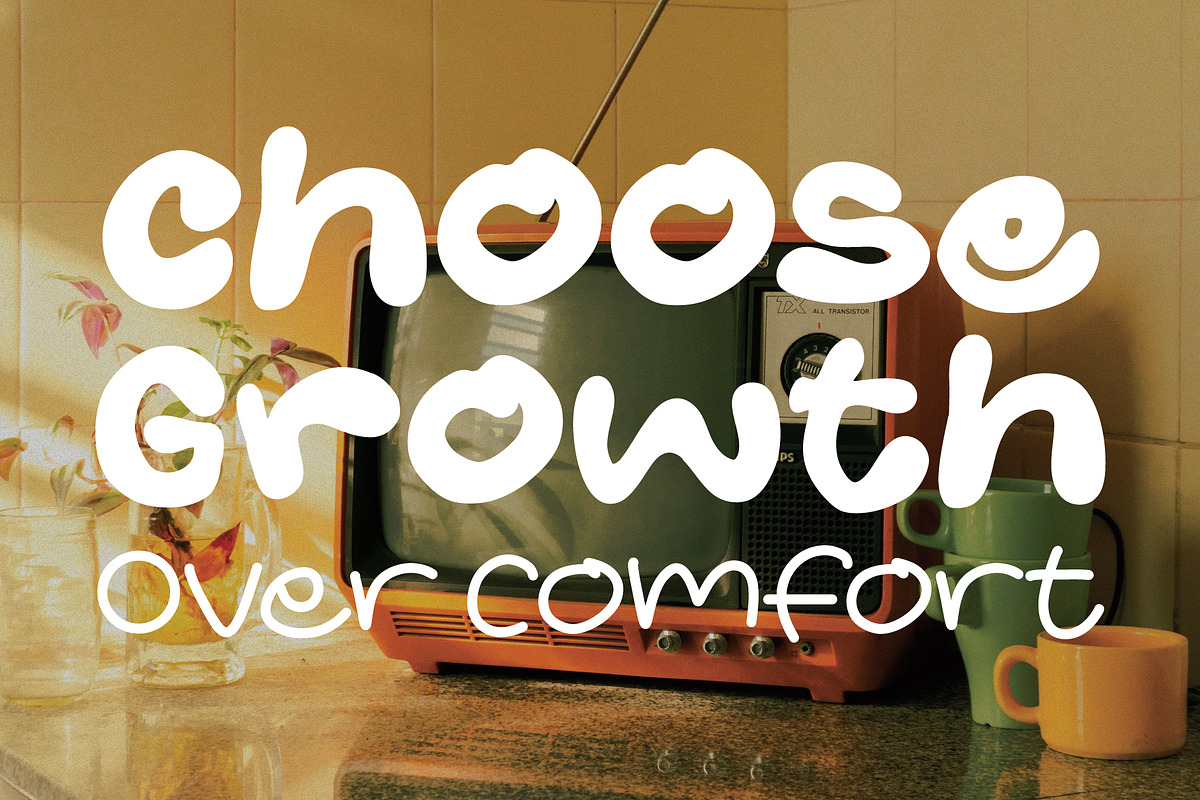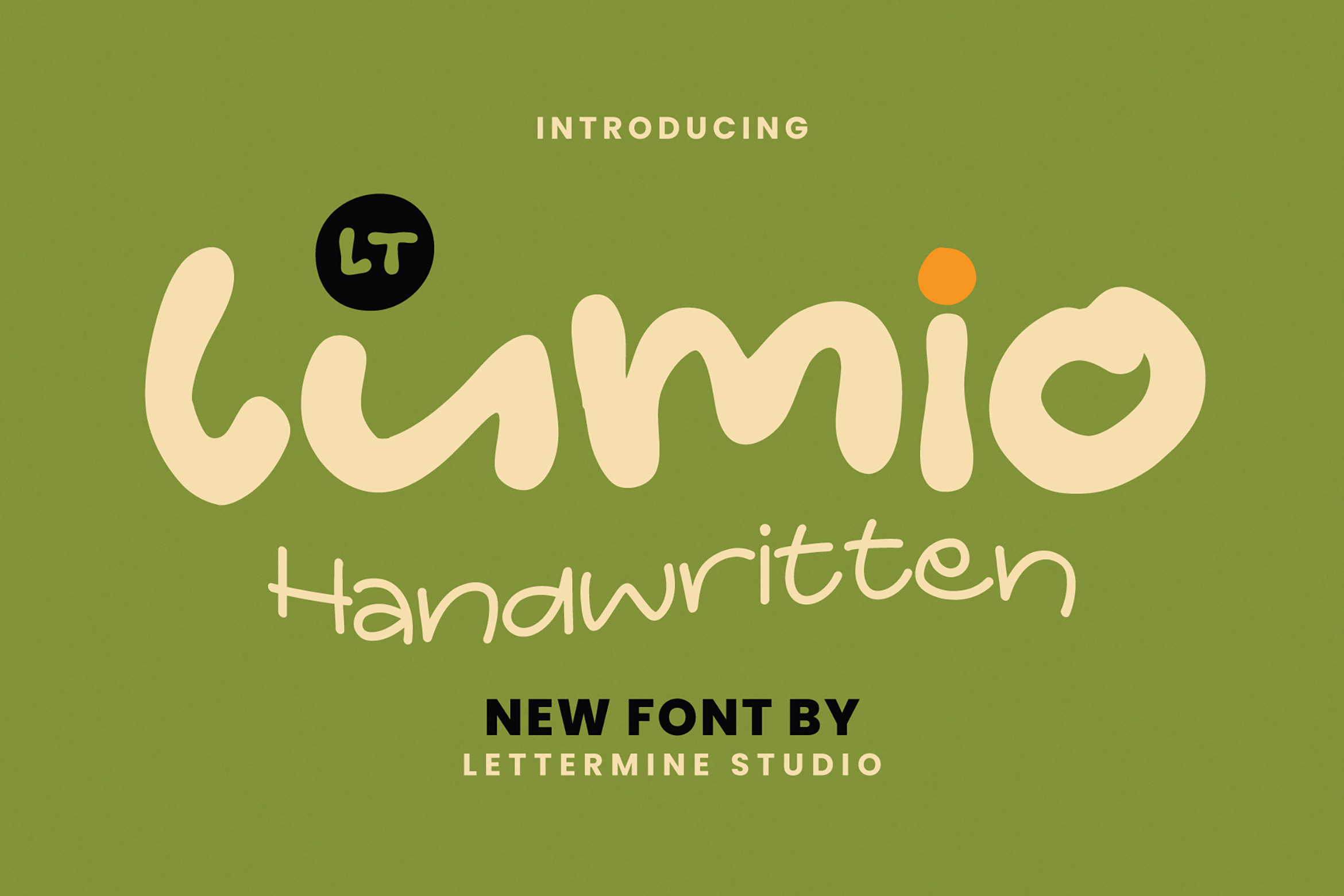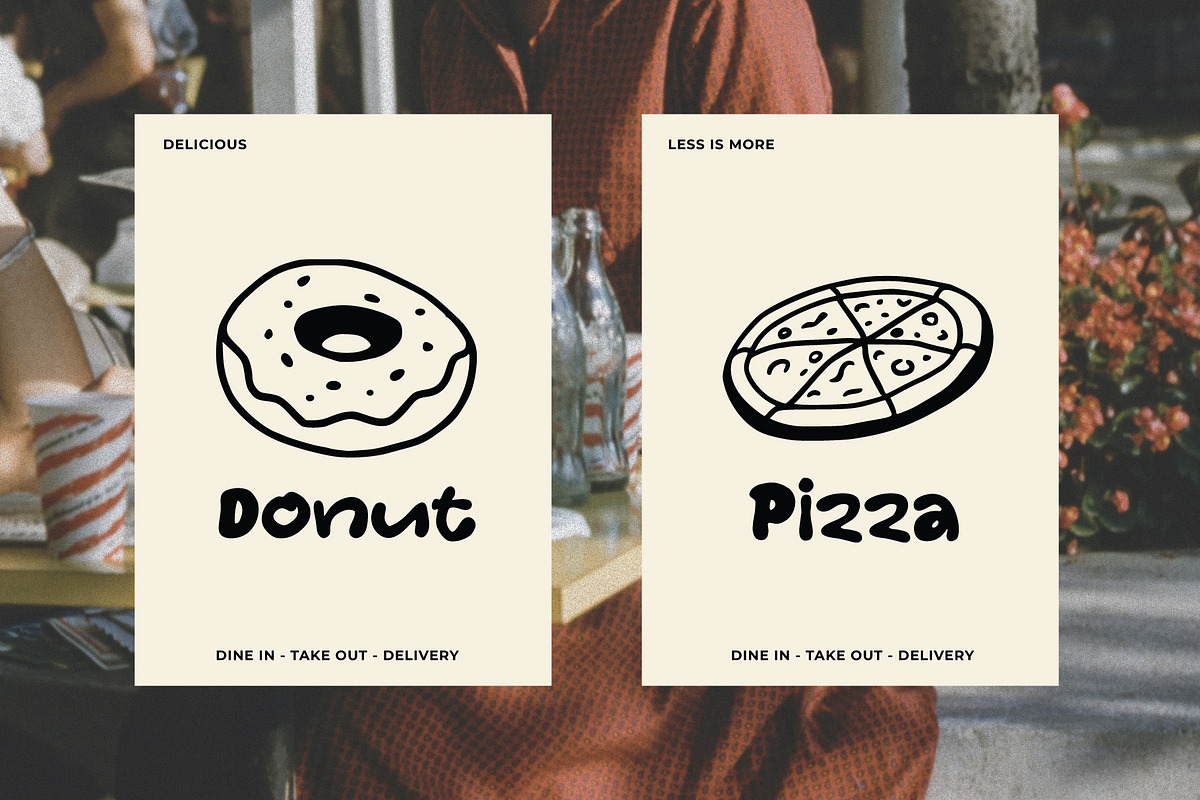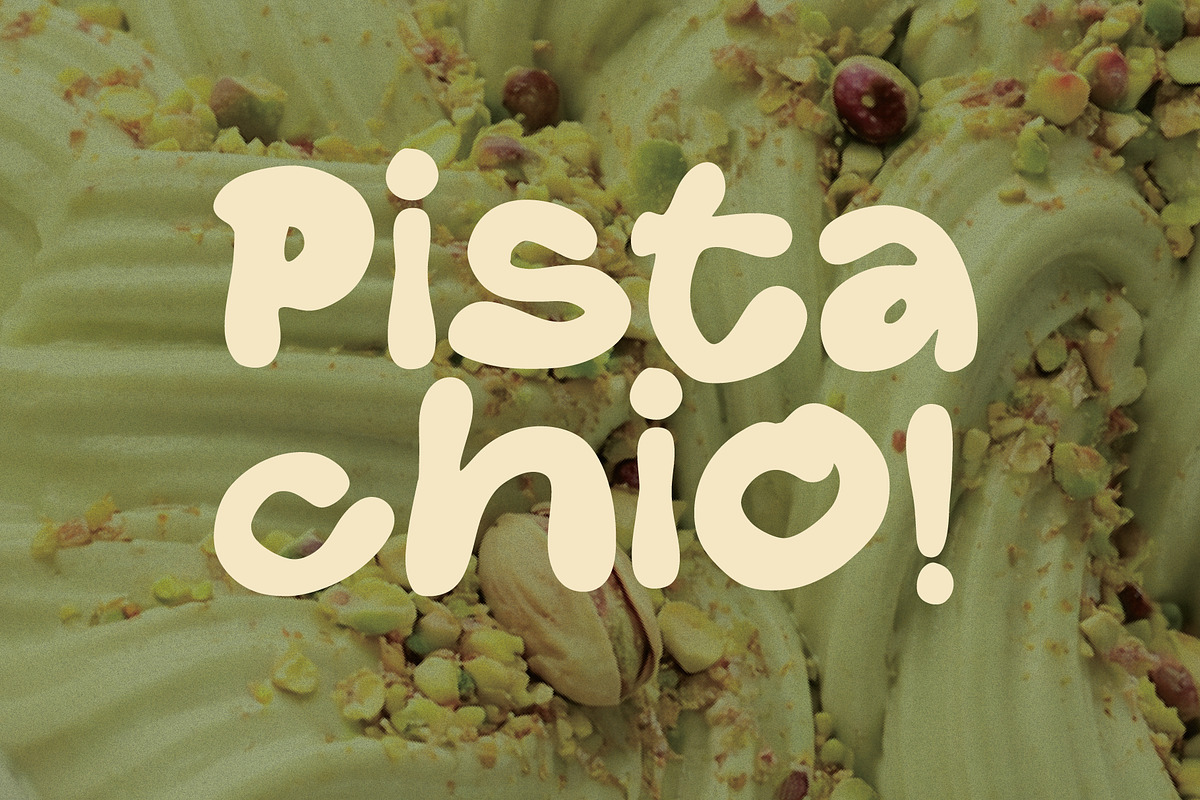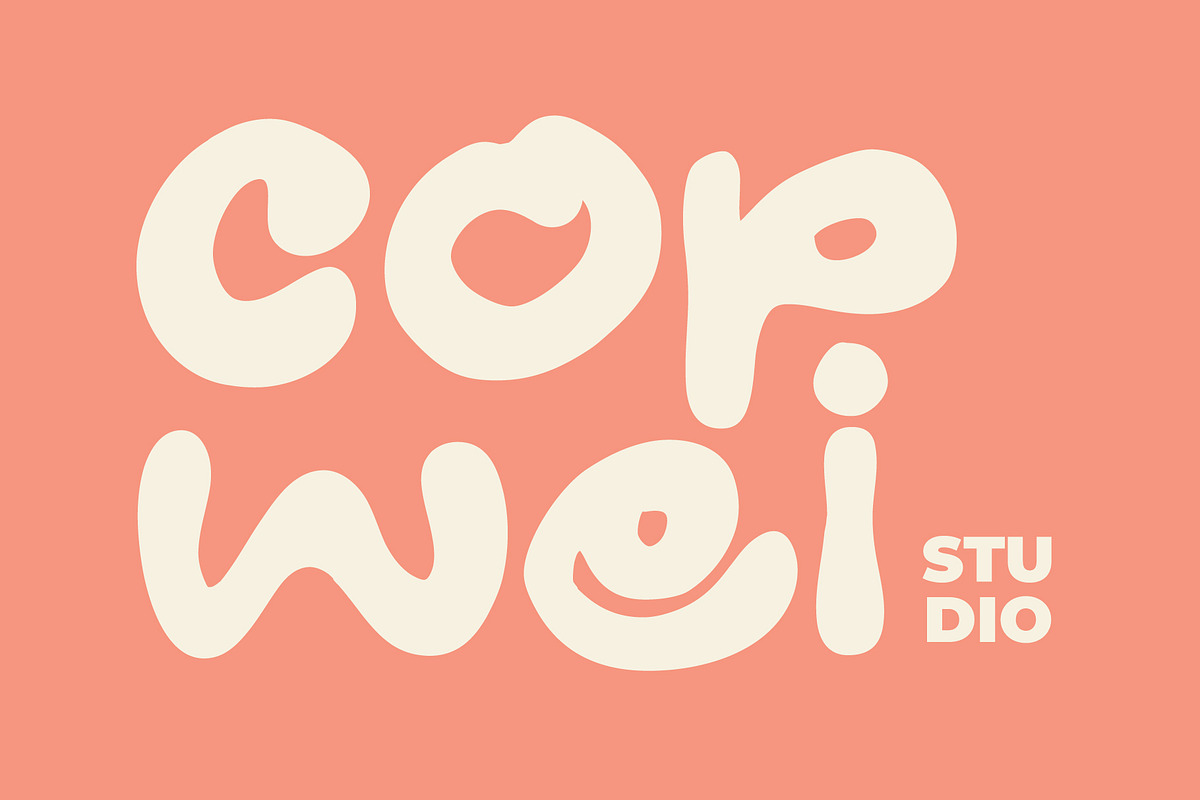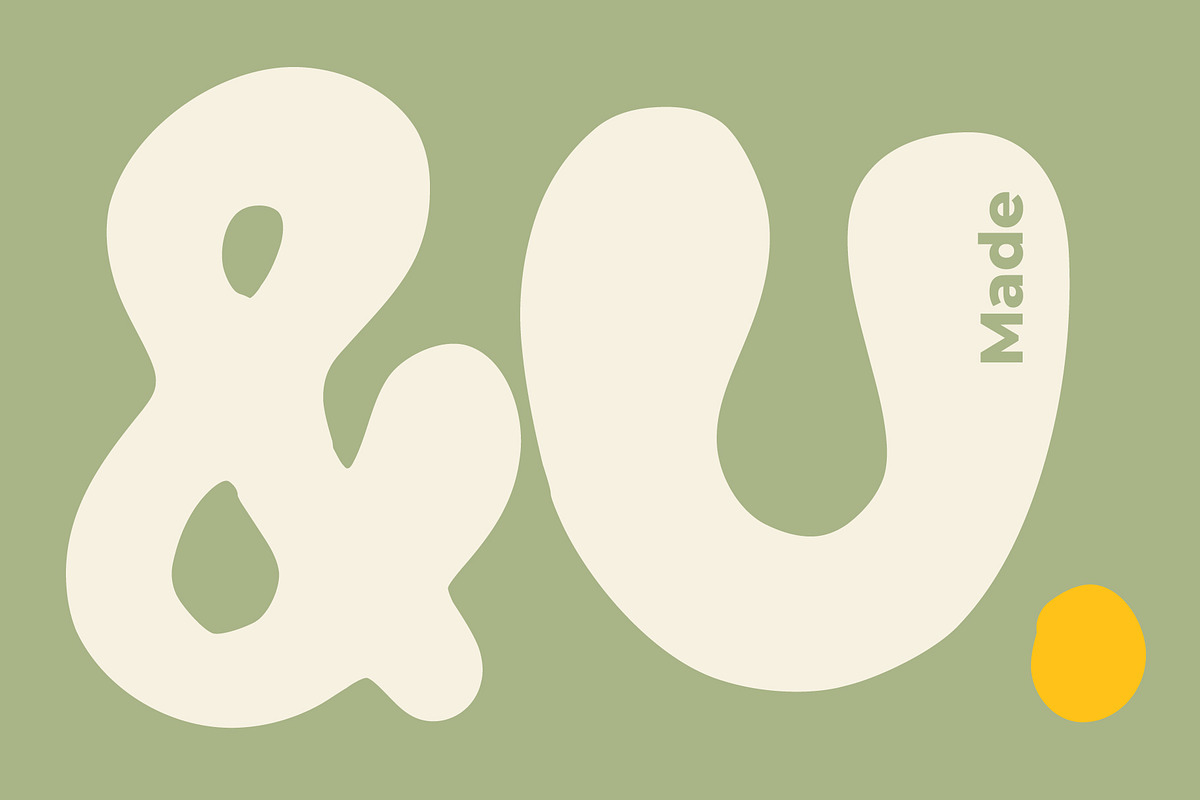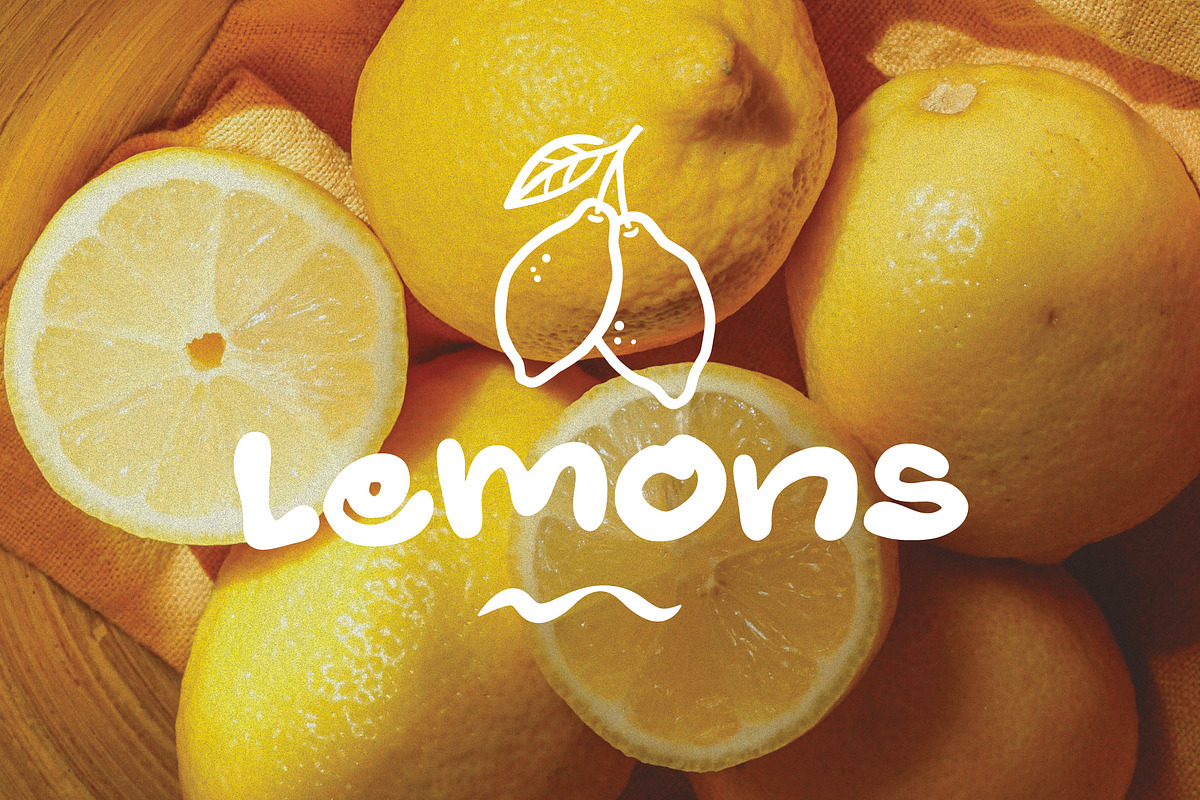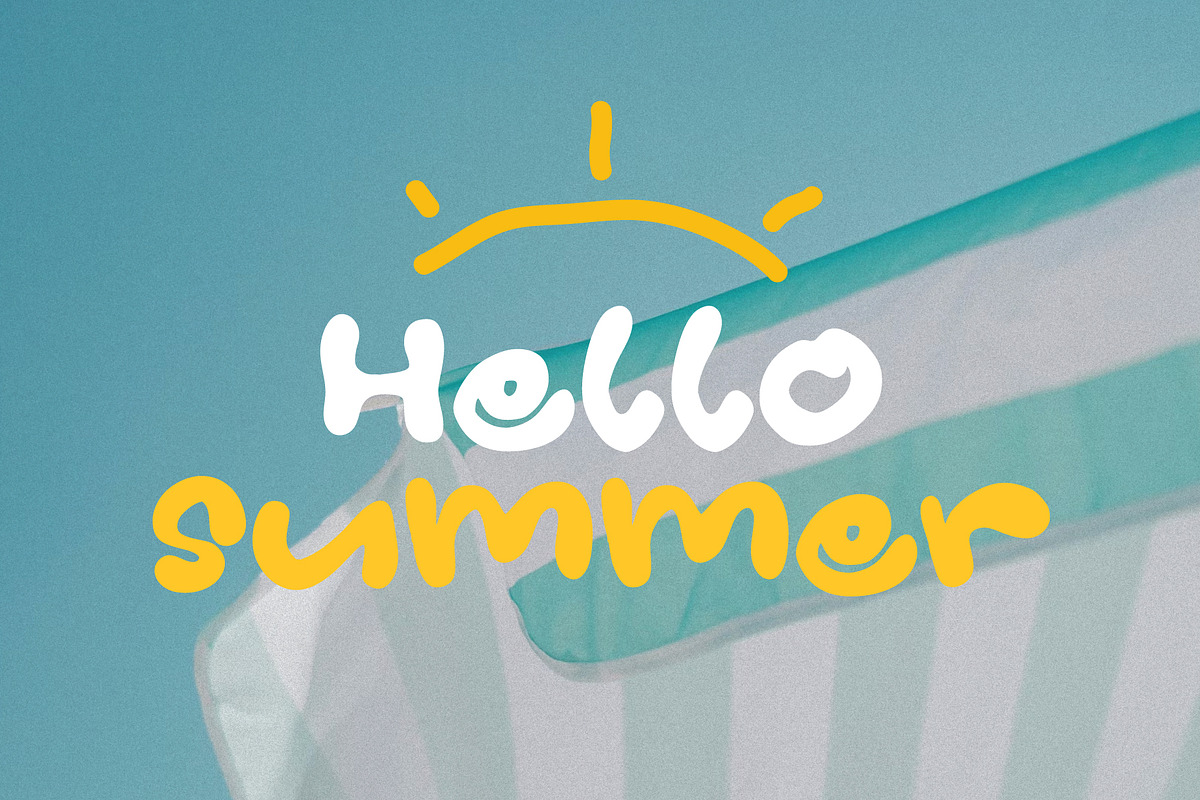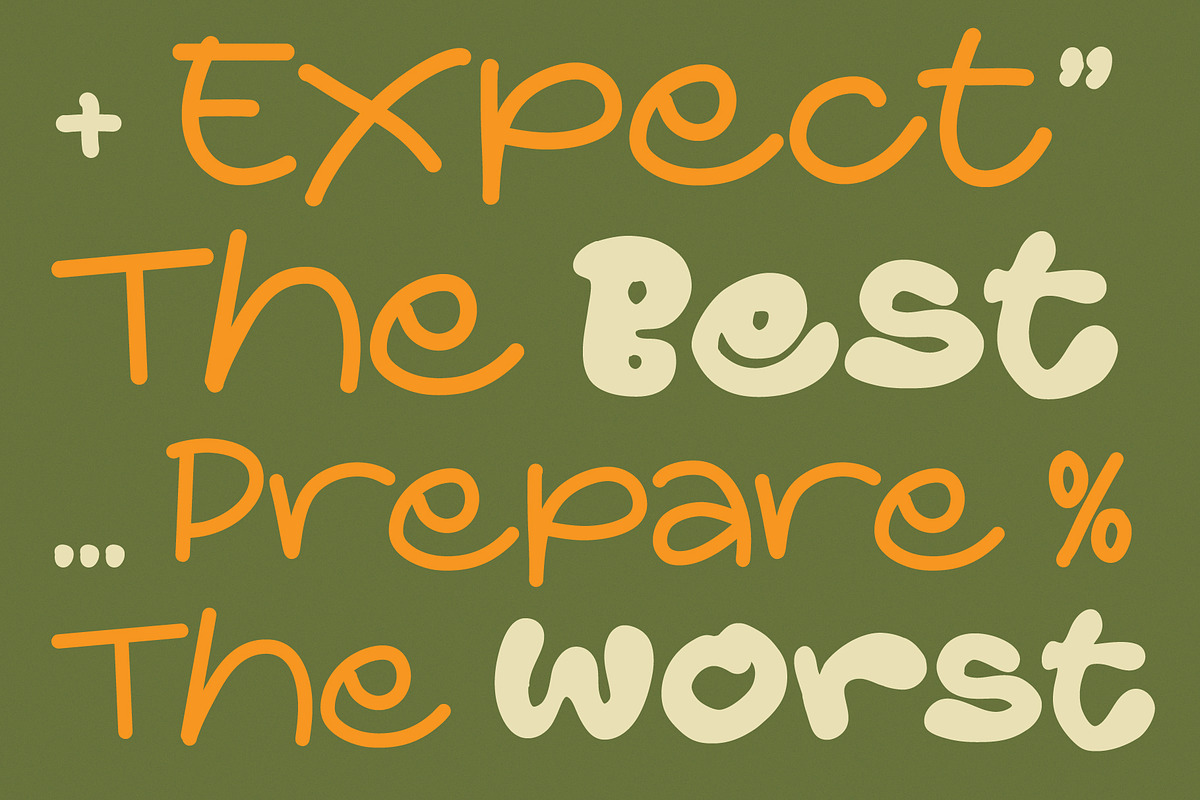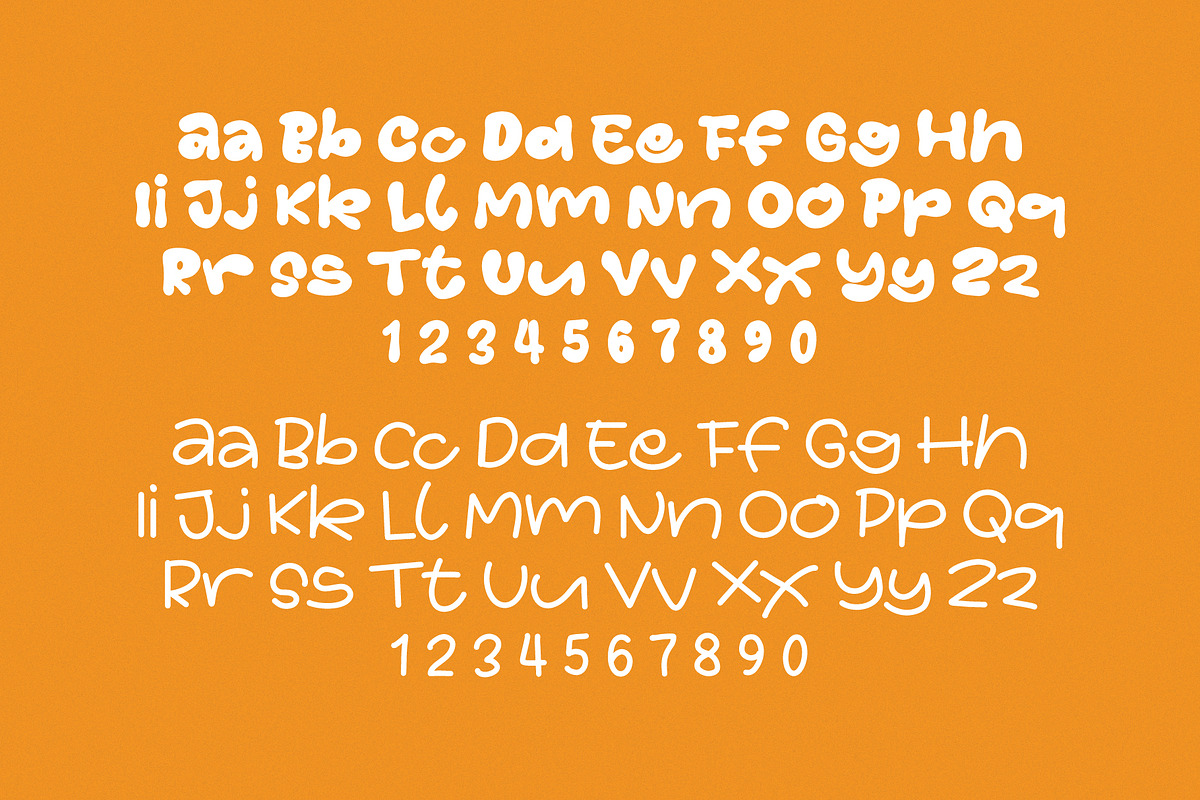
LT Lumio - Handwritten Font
LT Lumio – Handwritten Font
LT Lumio is a handwritten font with a bold, friendly, and natural writing style. Featuring rounded letterforms and smooth curves, this font brings a warm and cheerful personality that feels personal and approachable in any design.
Bold & Regular styles
Note: Create warm, friendly, and playful designs with the natural handwritten charm of LT Lumio.